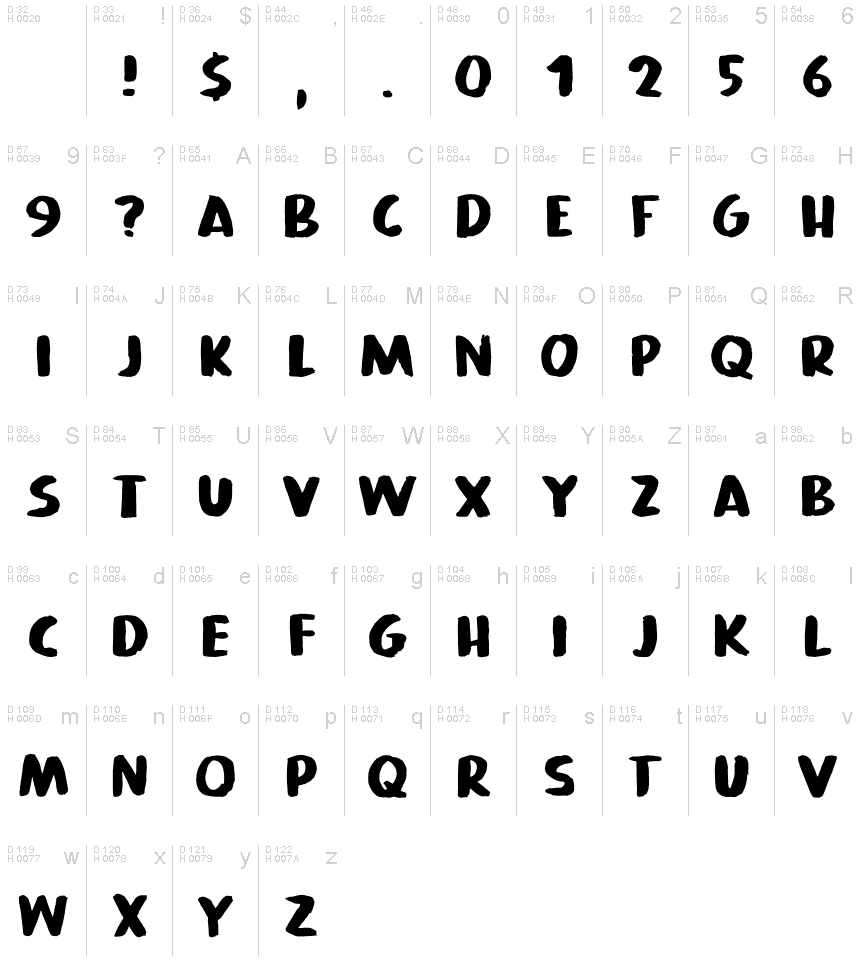
Fortune Teller DEMO Regular
Fortune Teller is a bold and dynamic brush font designed by D K. Its semi-expanded width gives it a strong presence, making it perfect for titles, headlines, and branding projects that require impact. The brush style adds an organic touch to your designs while the bold weight ensures that your message is clear and memorable. Fortune Teller is versatile enough for use in various creative projects such as packaging design, social media graphics, advertising campaigns, and more. With its unique personality and eye-catching appeal, Fortune Teller is the perfect choice for designers looking to add some extra flair to their work.